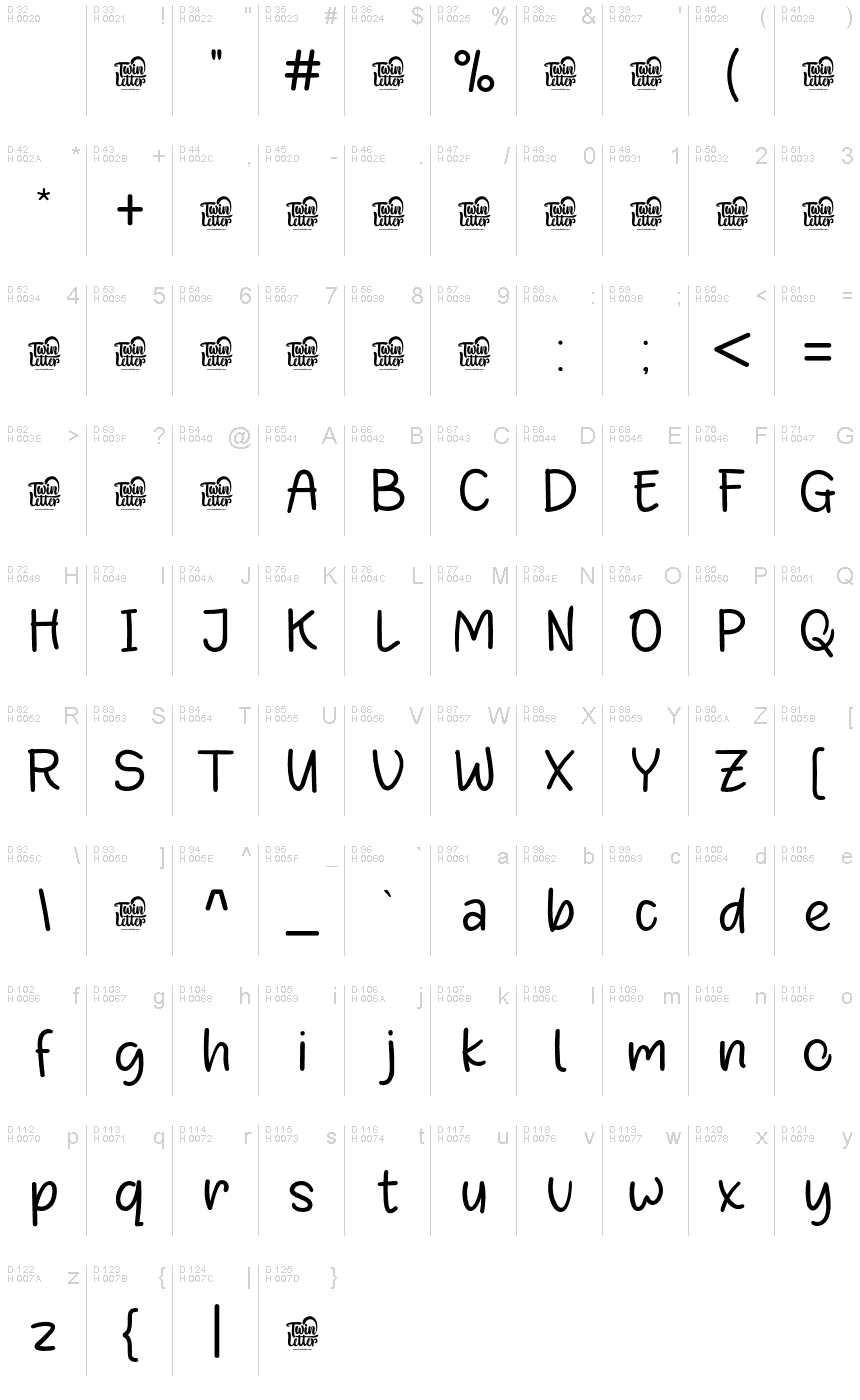
Qandas-Thin
Qandas Thin is a charming handwritten font designed by twinletter. With its semi-light weight, it exudes a delicate and airy feel that's perfect for projects that require a touch of elegance and sophistication. Whether you're creating wedding invitations, brand logos, or social media graphics, Qandas Thin will add a personal touch to your designs. Its flowing curves and graceful strokes make it suitable for anything from fashion magazines to food blogs. This versatile typeface is sure to elevate your projects with its unique style and effortless beauty. Try Qandas Thin today and see the difference it can make in your designs!